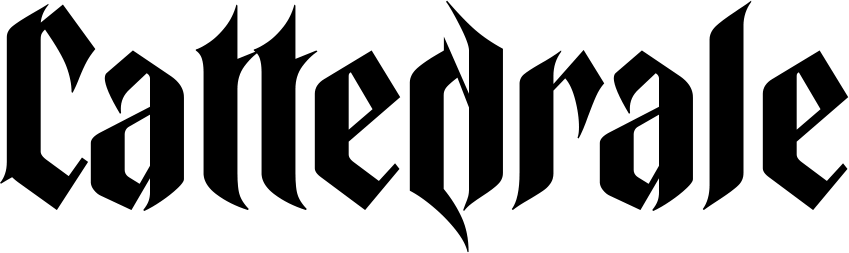
Cattedrale Font
Cattedrale is a gothic font that has a very interesting and eye-catching design. This is a biker gothic font and is suitable for producing content for young people. You can design video game posters and action movie logos for youngsters. Cattedrale conveys a sense of excitement and intimacy to the audience.